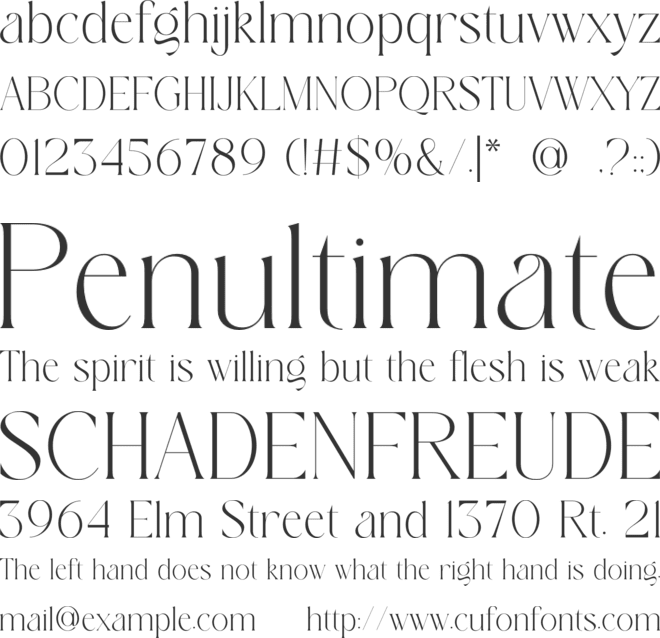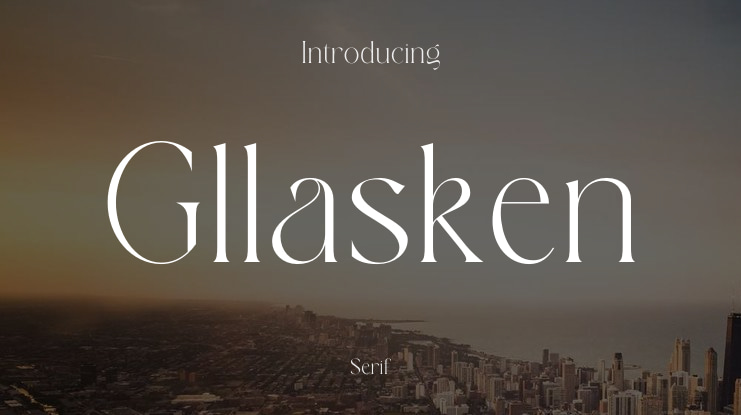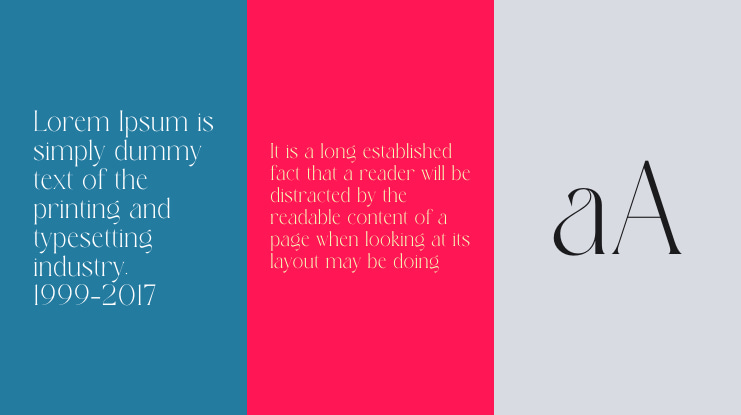
Gllasken Font
Introducing Gllasken An elegant, beautiful and modern serif. With its modern and minimalist appearance, Gllasken brings a luxurious, classy and clean style to your projects such as websites, modern logos, branding identities, social media quotes, wedding stationery, magazines and various other needs!
Gllasken displays unique and classy capital letters A to Z and is also equipped with alternative letters and unique ligatures so that Gllasken is a beautiful font that can be adapted to various projects and jobs that you want.